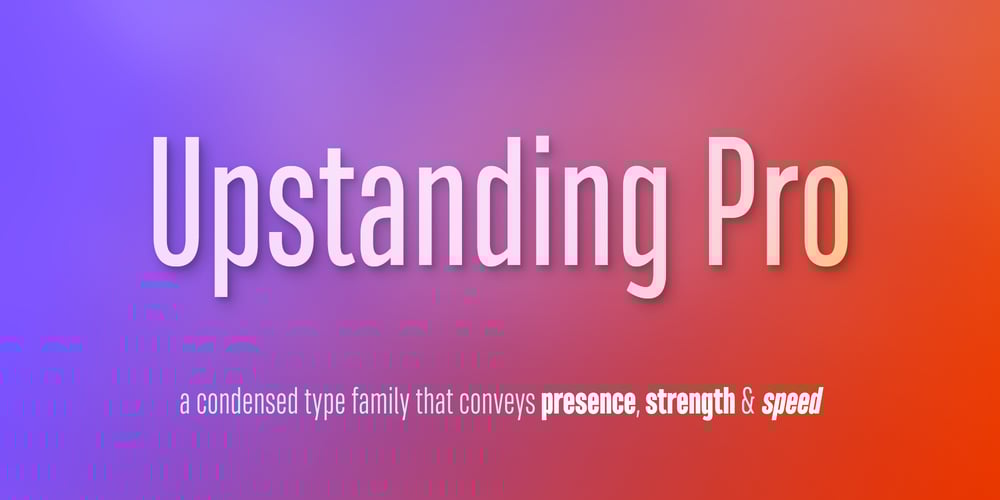
Upstanding Pro Font Family was designed by Pedro Madeira and published by Multiformis. Upstanding Pro contains 40 styles and family package options. Upstanding Pro is suited for use as a display typeface, but legible enough to be used in small blocks of text (lighter weights), thus providing a lot of flexibility for all kinds of projects.Upstanding Pro conveys presence, strength and speed with the italics, yet conserving certain traces of sobriety and elegance. Want to make a statement? Use Upstanding Pro!